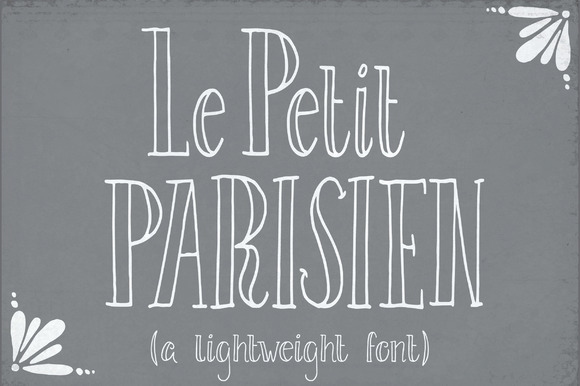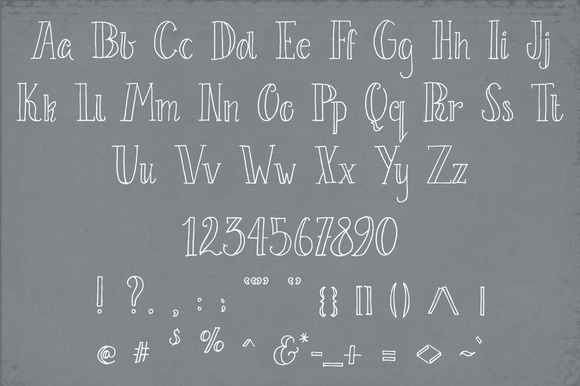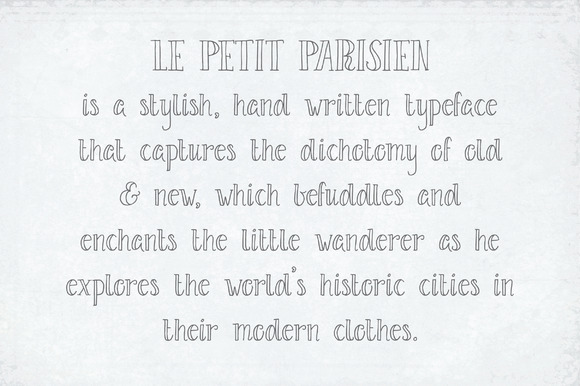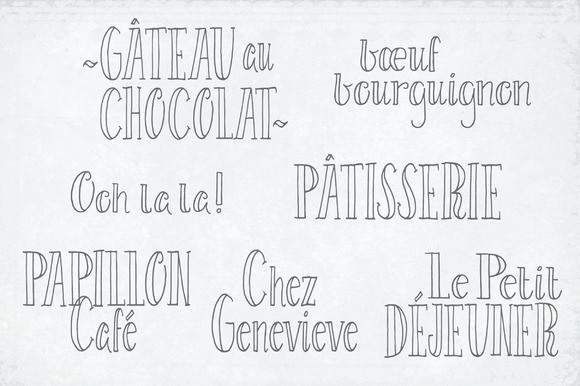
Le Petit Parisien Light Font
About Le Petit Parisien Light Font
Le Petit Parisien Light is a light cute hand writing font that is inspired by the city of love historic feel.
This font combines the old and new Paris which gives it a unique mix of modern letters with a vintage feeling.
La Petit Parisien Light is the perfect font for invites, menu’s, place cards, shirts and much more.